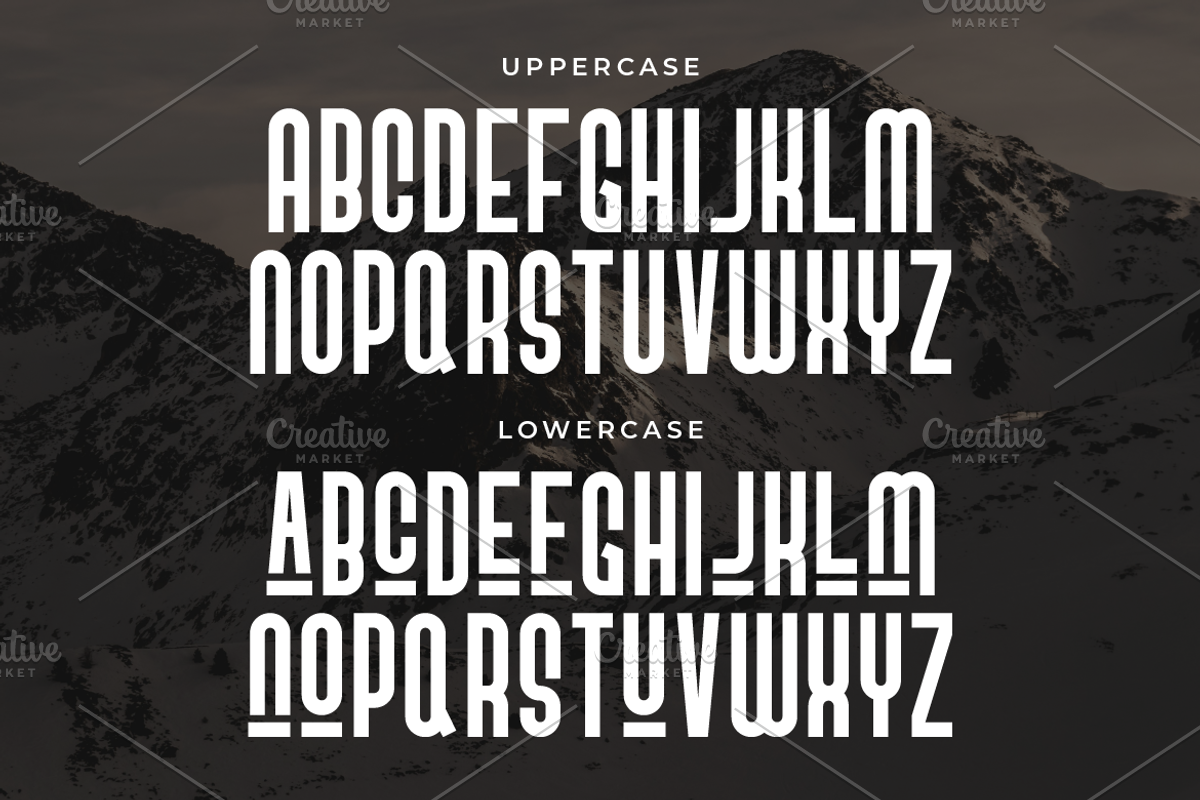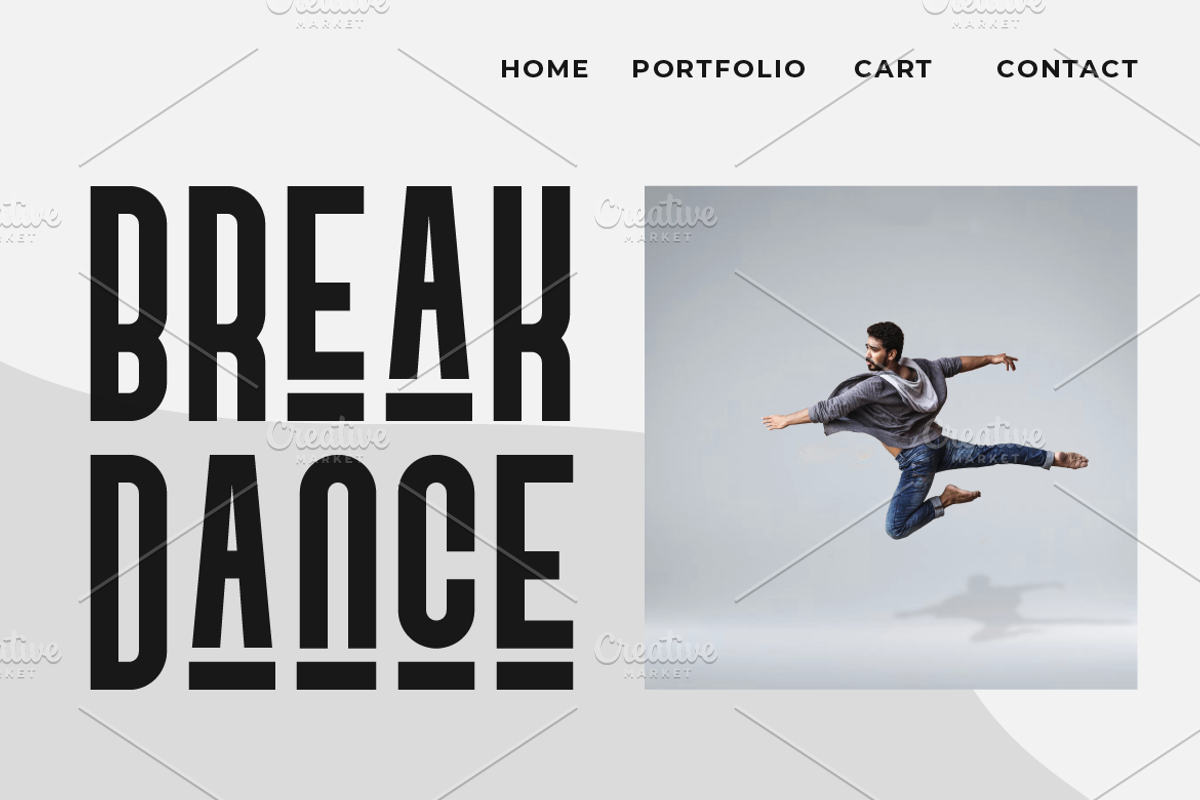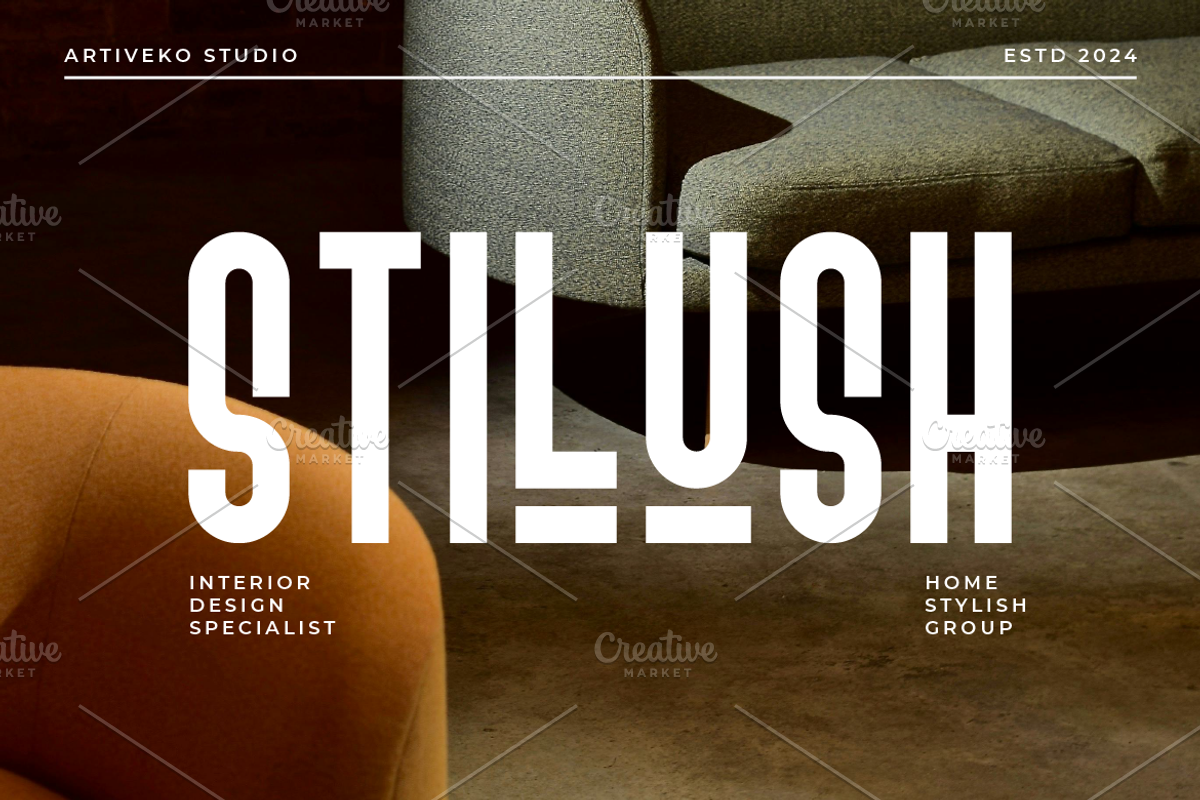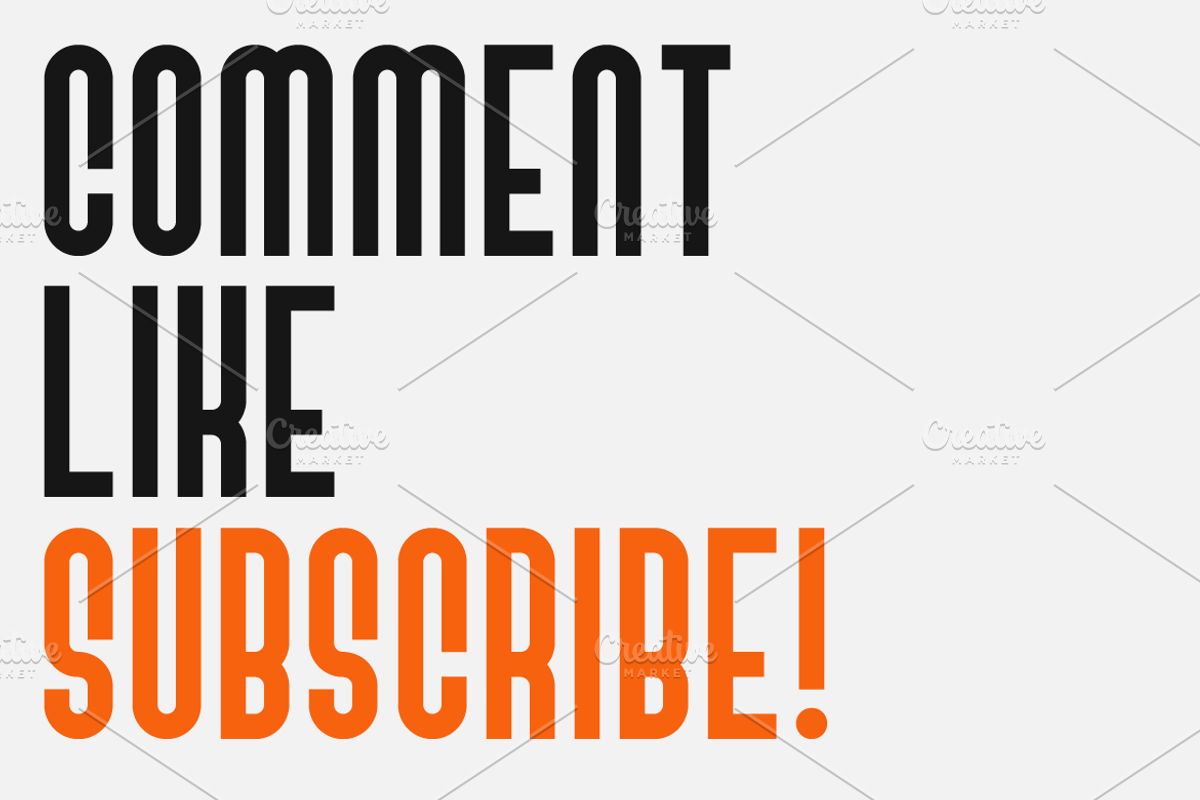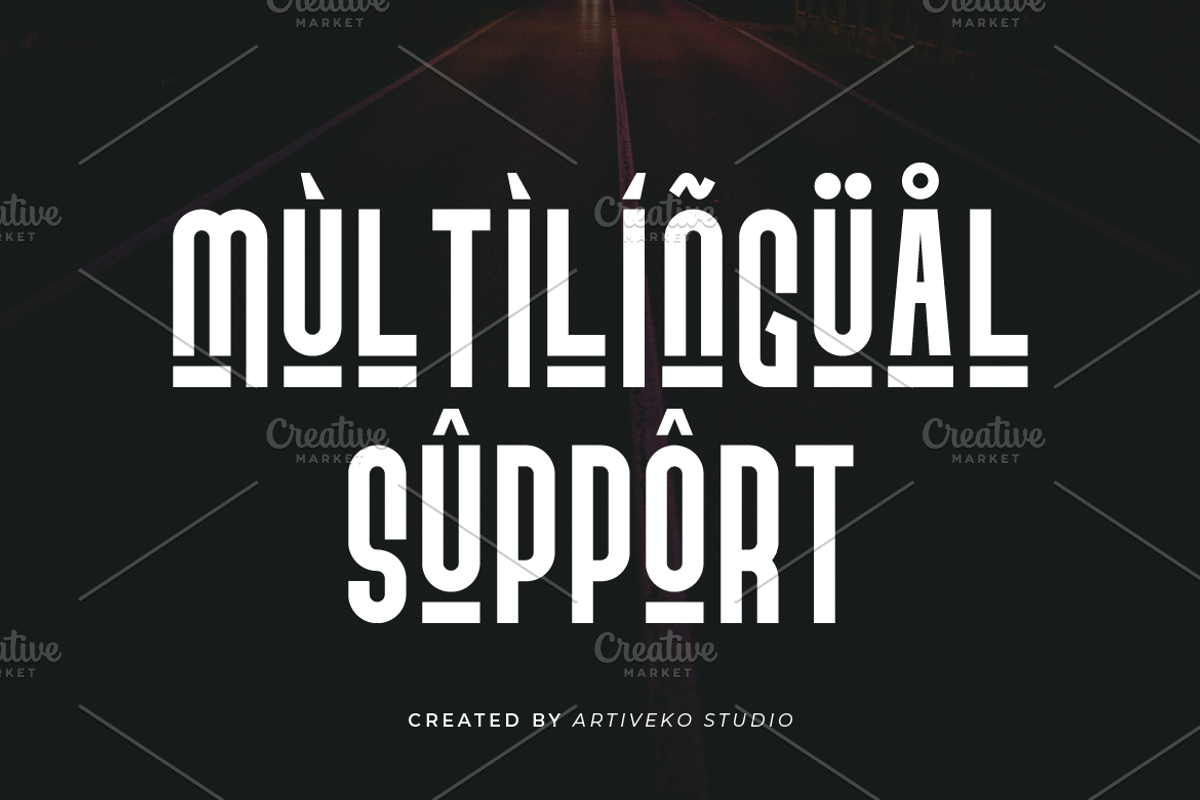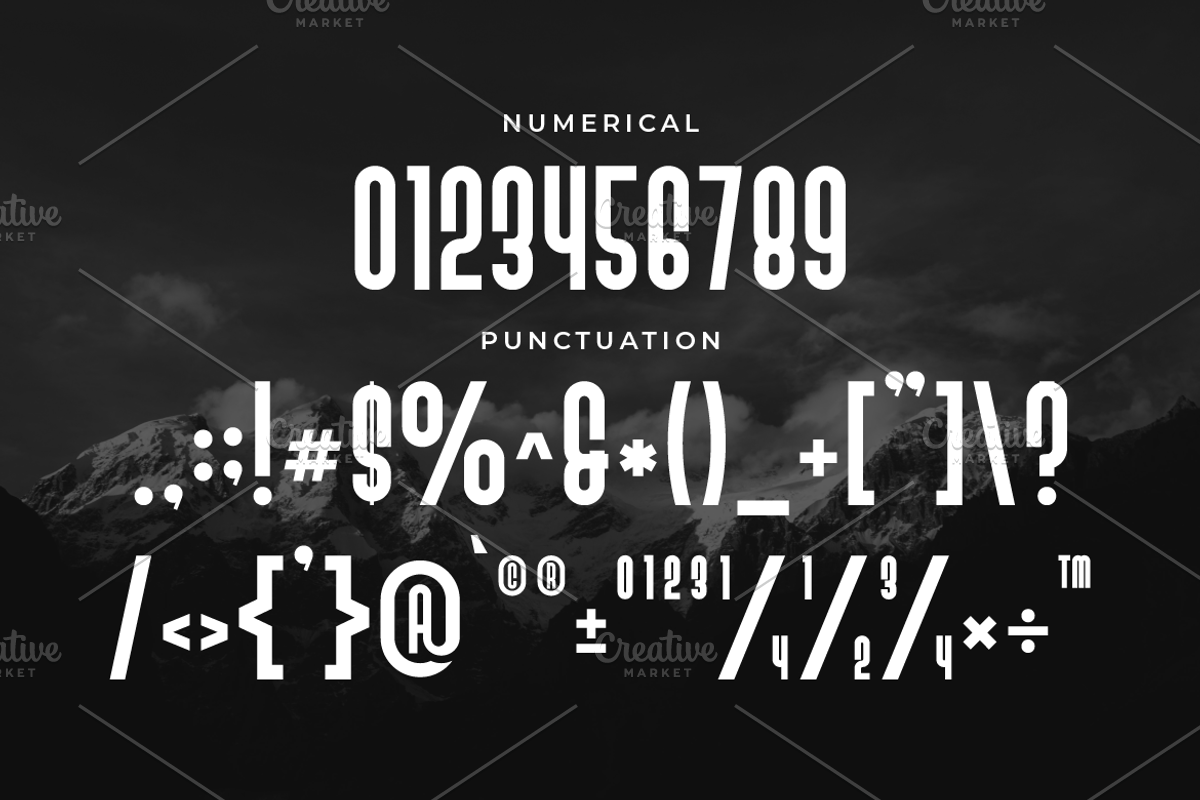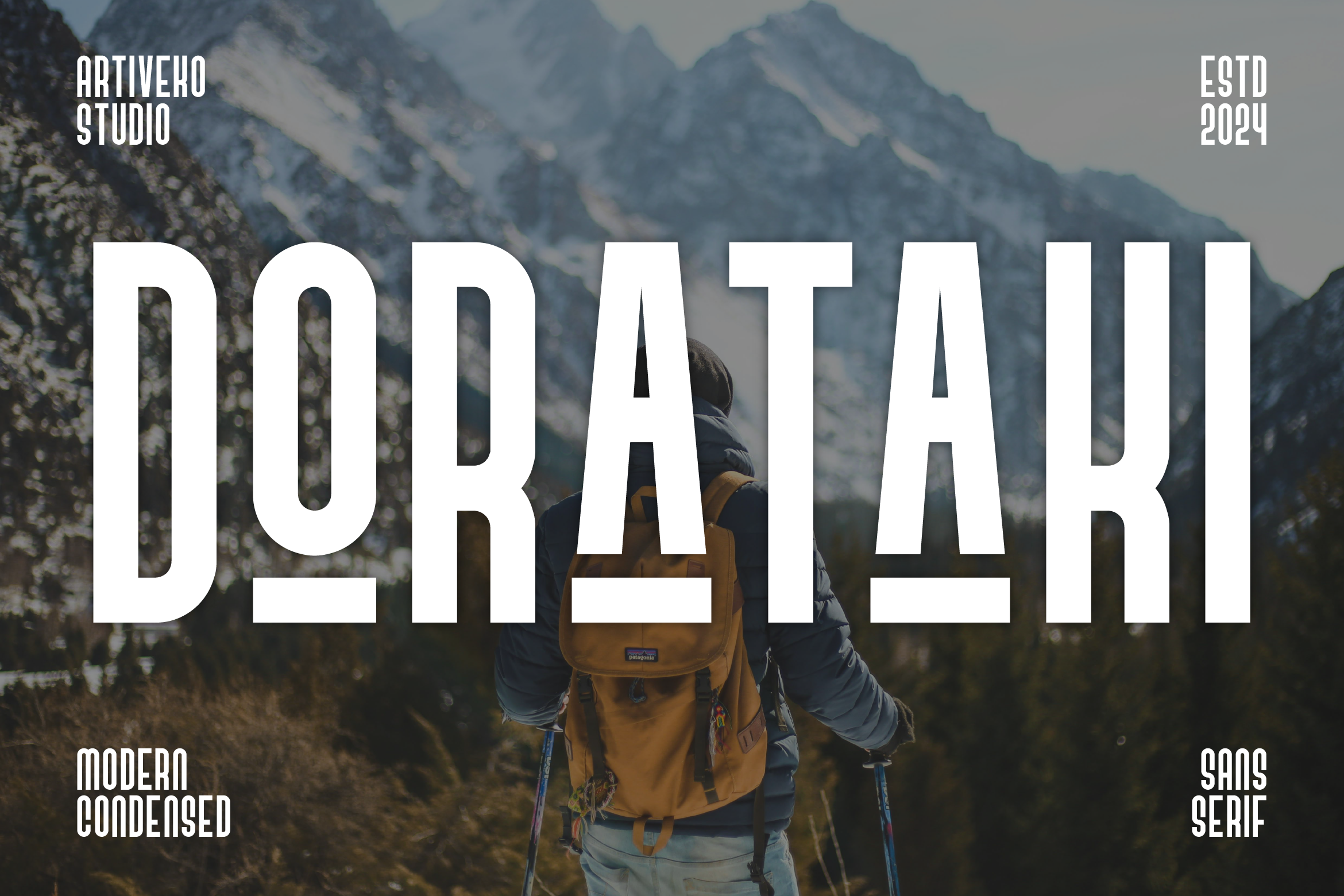
Dorataki Condensed Sans Font
Dorataki is a condensed unique sans serif font by Iwan Alwan, characterized by its distinct and creative letterforms that set it apart from conventional typefaces. With its compact, modern design, Dorataki is perfect for branding, posters, and editorial projects where space is limited, but impact is essential. Offering multilingual support, ligatures, and alternates, Dorataki provides versatility while delivering a bold, one-of-a-kind aesthetic, making it ideal for projects that seek originality in a condensed format.